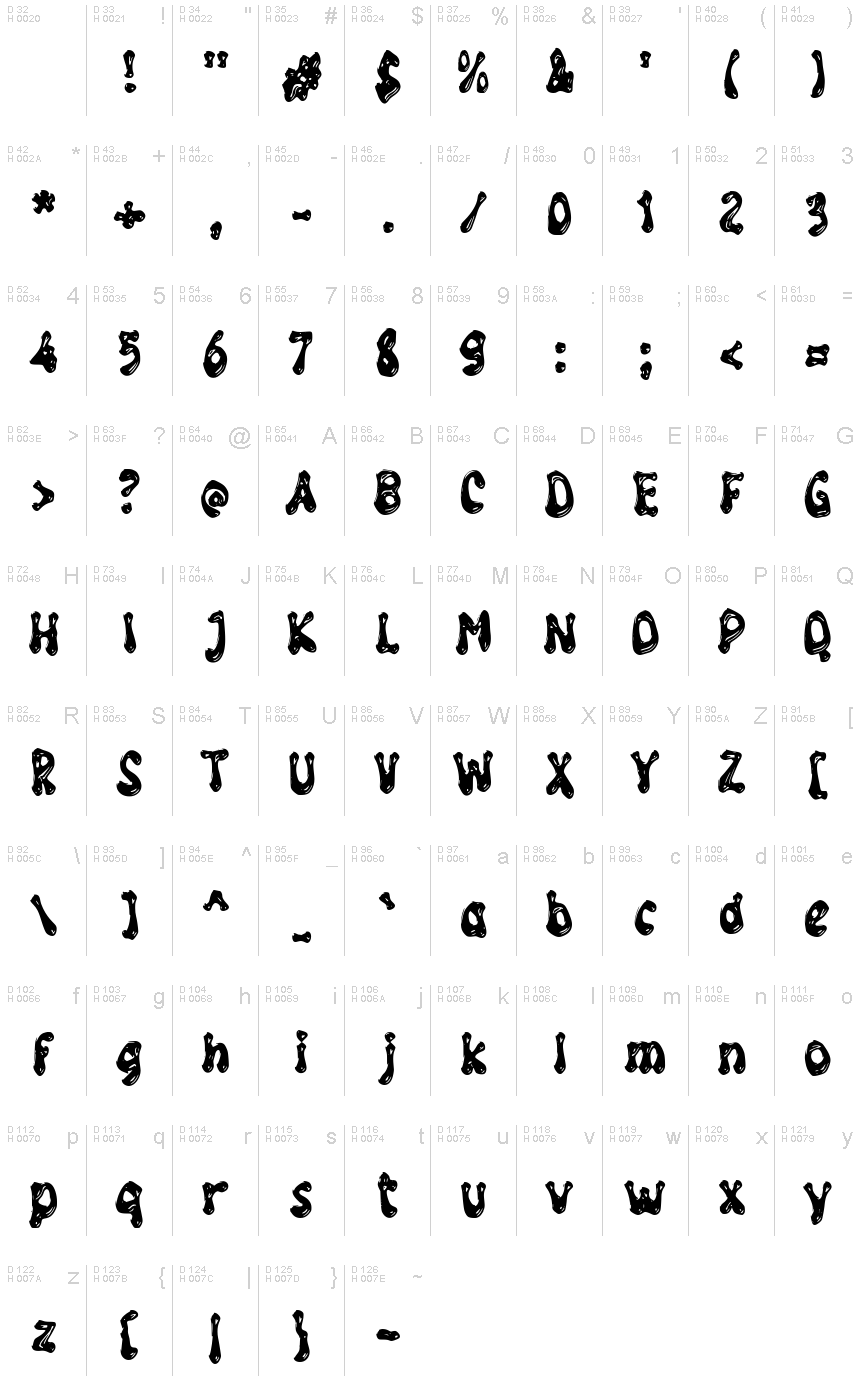
Groovy Gold
Groovy Gold, a captivating display font created by wep, exudes a vibrant and whimsical charm. Its bold, playful strokes and organic, flowing shapes evoke a sense of joy and energy, perfect for projects seeking a touch of retro-inspired flair. The font's unique character and distinctive personality make it a standout choice, capturing the essence of a bygone era with a modern twist.
Groovy Gold's versatility shines through, seamlessly adapting to a wide range of design applications. From eye-catching headlines and impactful branding to dynamic packaging and engaging social media content, this font effortlessly elevates visual narratives with its irresistible personality. Its bold presence and captivating style make Groovy Gold an ideal selection for projects seeking to infuse a vibrant, retro-inspired aesthetic.